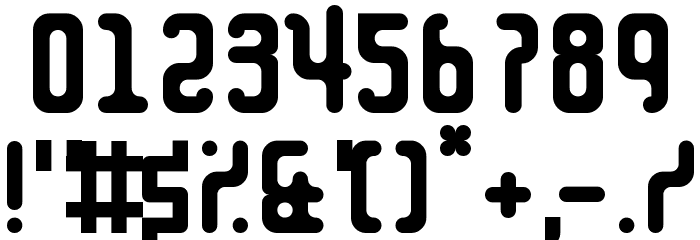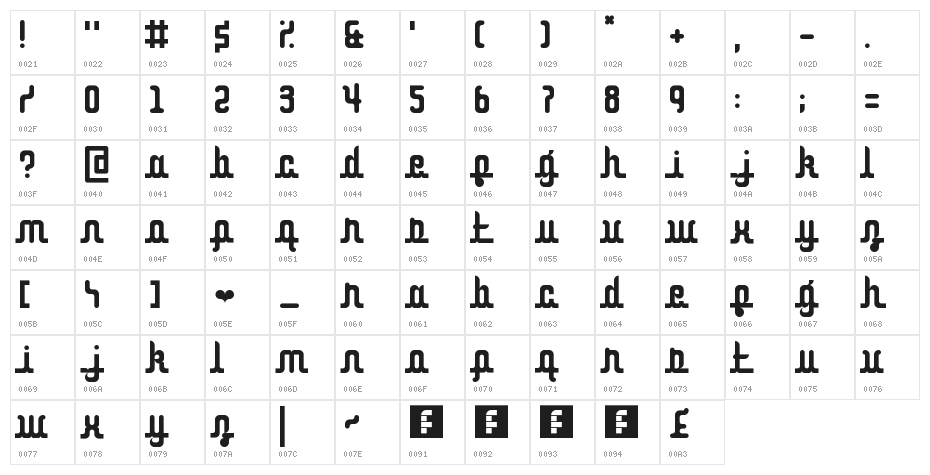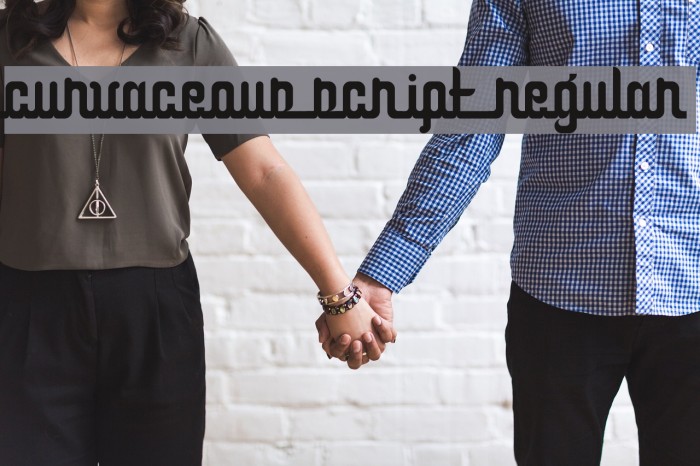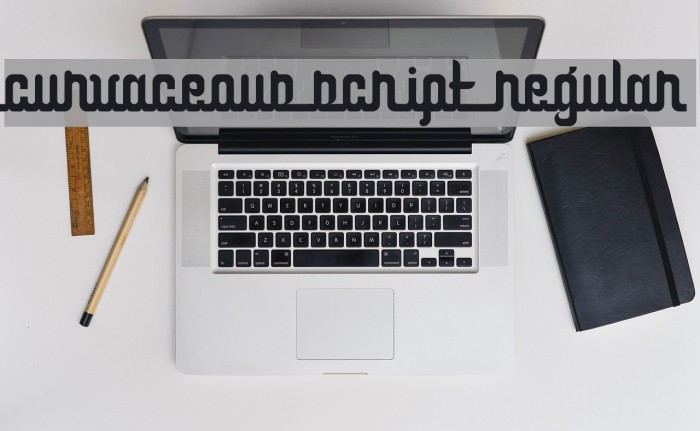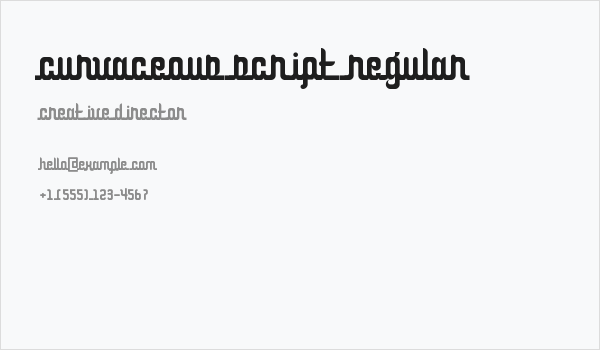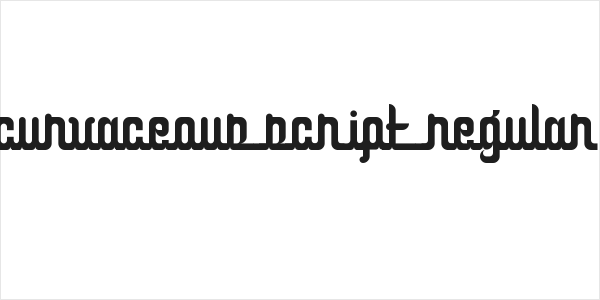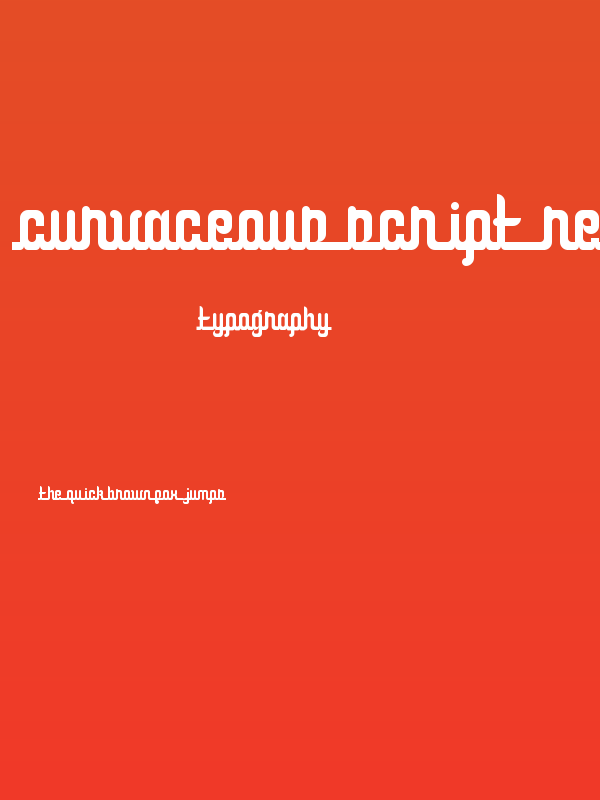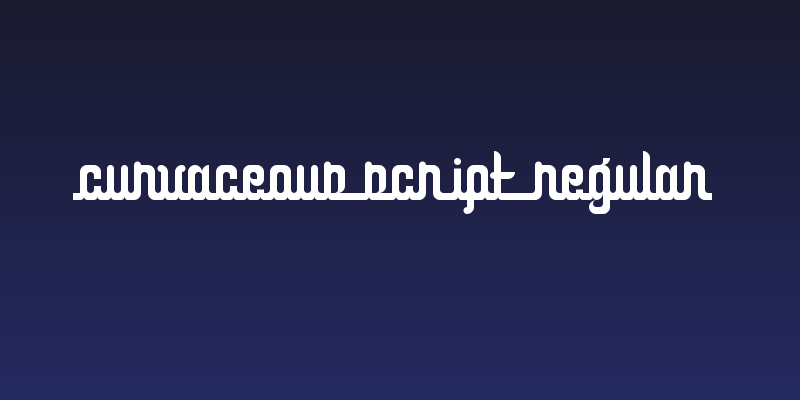
Curvaceous Script Regular Font
Curvaceous Script Regular Description
This font features a bold, interconnected script style with a modern twist. Each character is crafted with smooth, flowing lines that create a sense of movement and elegance. The letters are closely spaced, enhancing the cohesive look of the text. The uppercase and lowercase letters maintain a consistent height, contributing to a uniform appearance. The numbers and special characters are designed with the same fluidity, ensuring they blend seamlessly with the alphabet. This font's unique style makes it stand out, offering a contemporary yet classic feel that is both eye-catching and versatile.